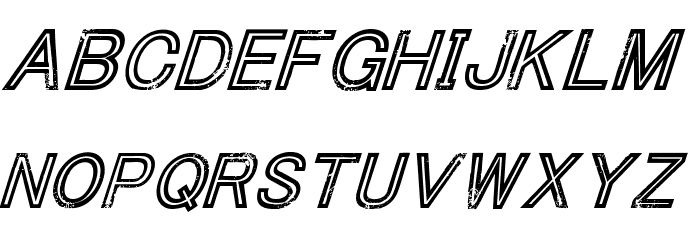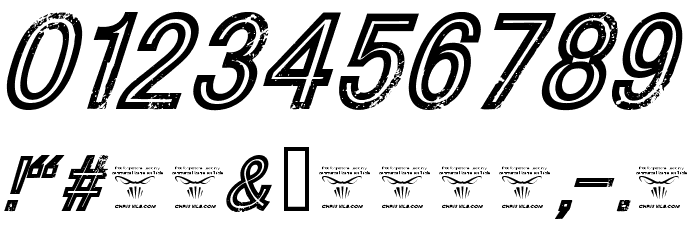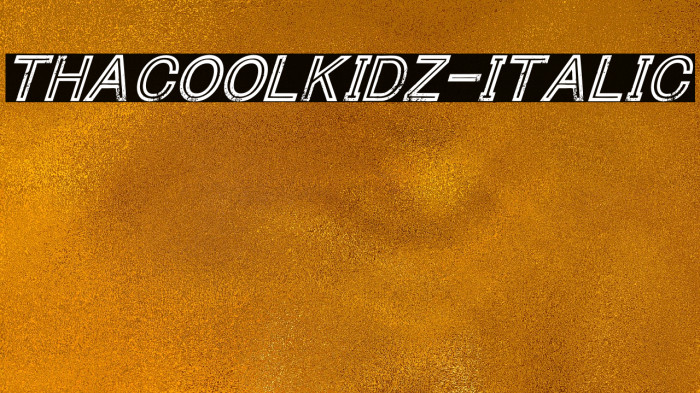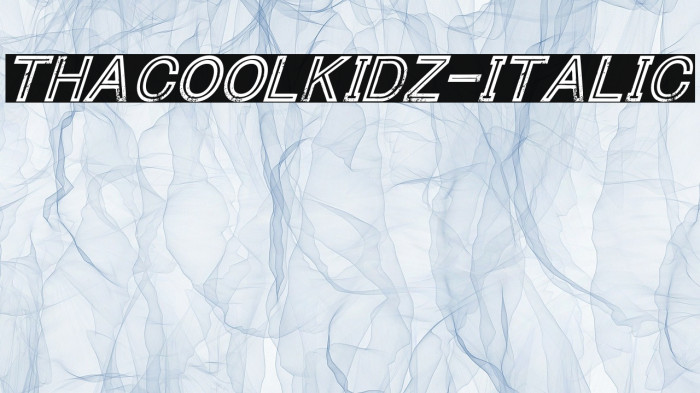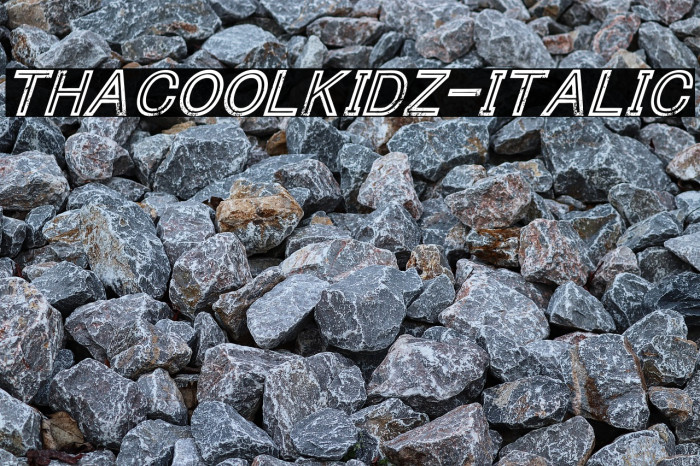
ThaCoolKidz-Italic Font
This font features a bold, italicized style with a distressed, grunge effect that adds a unique texture to each character. The uppercase and lowercase letters maintain a consistent slant, enhancing the italicized appearance. The numerals and special characters follow the same stylistic approach, ensuring uniformity across all elements. The font's boldness is complemented by a medium contrast in stroke thickness, making it stand out while remaining legible. The character spacing is normal, allowing for clear readability even with the textured design. This font is ideal for projects that aim to convey a sense of edginess or modernity, such as urban-themed designs, music album covers, or fashion branding.
A bold, italicized font with a grunge texture and medium contrast, perfect for edgy designs.
- Proposed Projects: Urban-themed designs, music album covers, fashion branding, posters, and logos.
- Overall Style: Modern, Edgy
- Use Case: Logos, Posters, Headlines